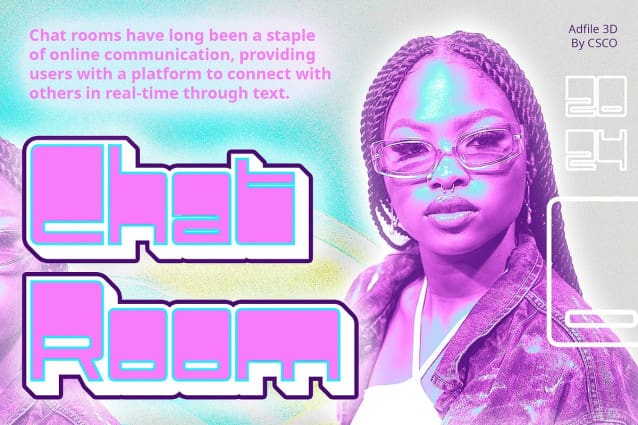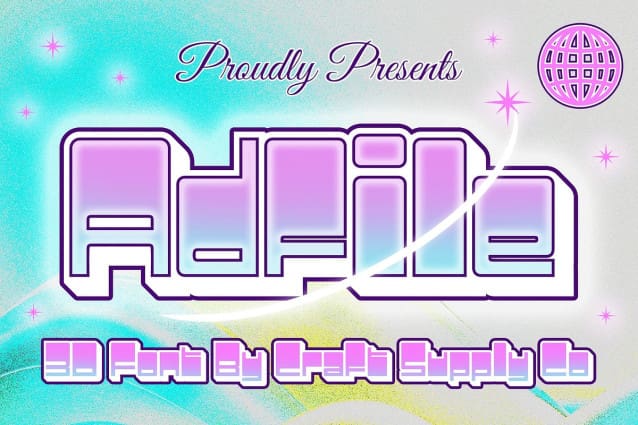
Adfile 3D Font
Adfile 3D Font a striking display font with a retro geometric aesthetic. Its clean lines and angular shapes evoke a sense of nostalgia, perfect for vintage-inspired projects.
Dynamic 3D Effects With intricate extrude and outline effects, This font takes on a three-dimensional appearance that enhances its retro charm. Each character pops off the page, adding depth and visual interest to your designs.
Tailored for Display Needs Designed specifically for display purposes, This font excels in grabbing attention. Whether it’s signage, posters, or digital banners, this font ensures your message stands out with its bold, 3D presence.
Versatile Retro Appeal Beyond its eye-catching design, This font offers versatility in application. From branding to editorial design, its retro-inspired look adds a touch of nostalgia and personality to any project.
Retro Charm in 3D This font combines retro aesthetics with modern 3D effects to create a unique display font. Its geometric sans serif style, paired with captivating 3D detailing, makes it an ideal choice for projects requiring a blend of nostalgia and contemporary appeal. Step into the world of This font and add a retro twist to your designs with its dynamic 3D effects.